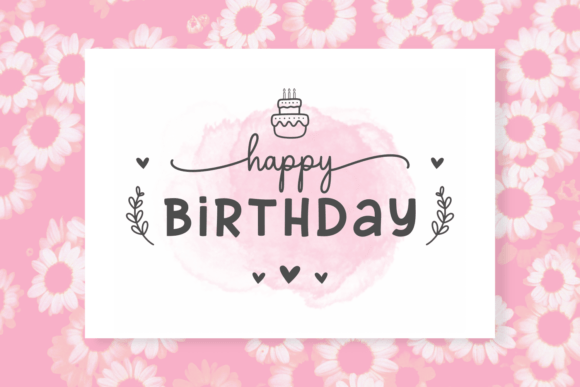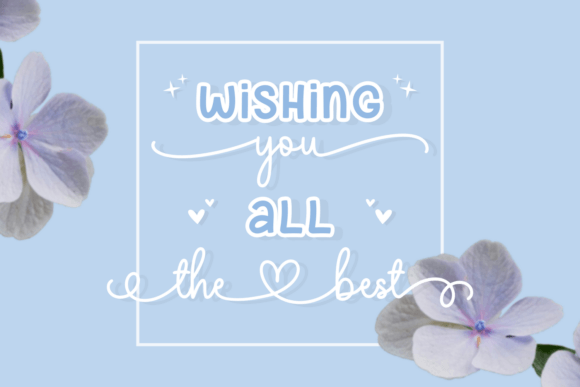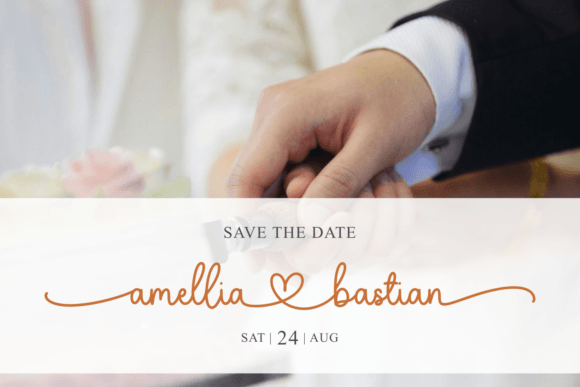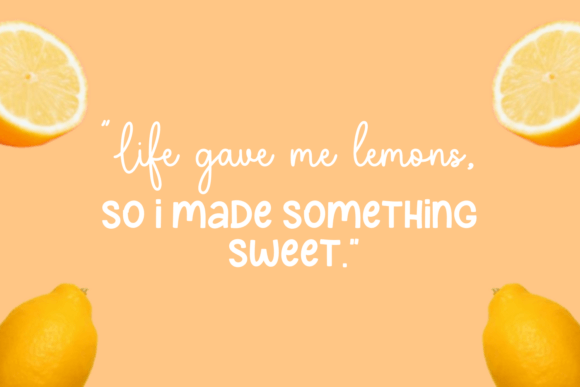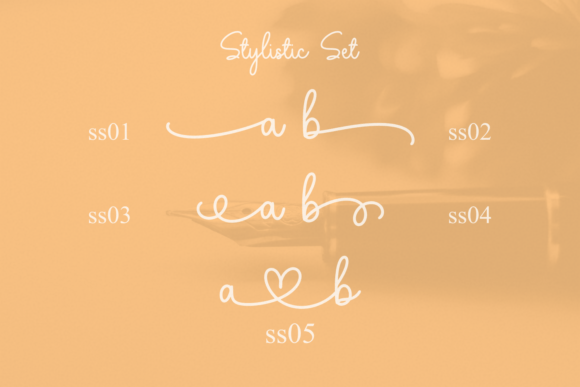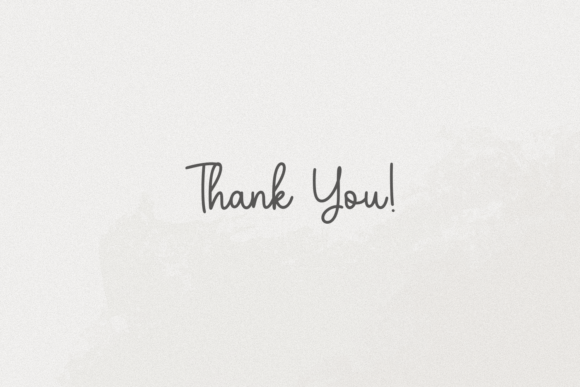
Introduction to Lemon Ginger Font
Lemon Ginger is a playful handwritten font duo with a delightful charm.
Its organic, carefree style brings warmth and character to any project, making it an ideal choice for creative, festive, and cheerful designs Whether for holiday crafts, greeting cards, or eye-catching social media graphics, Lemon Ginger adds a touch of whimsy that will make your work stand out beautifully.
Key Features of Lemon Ginger Font